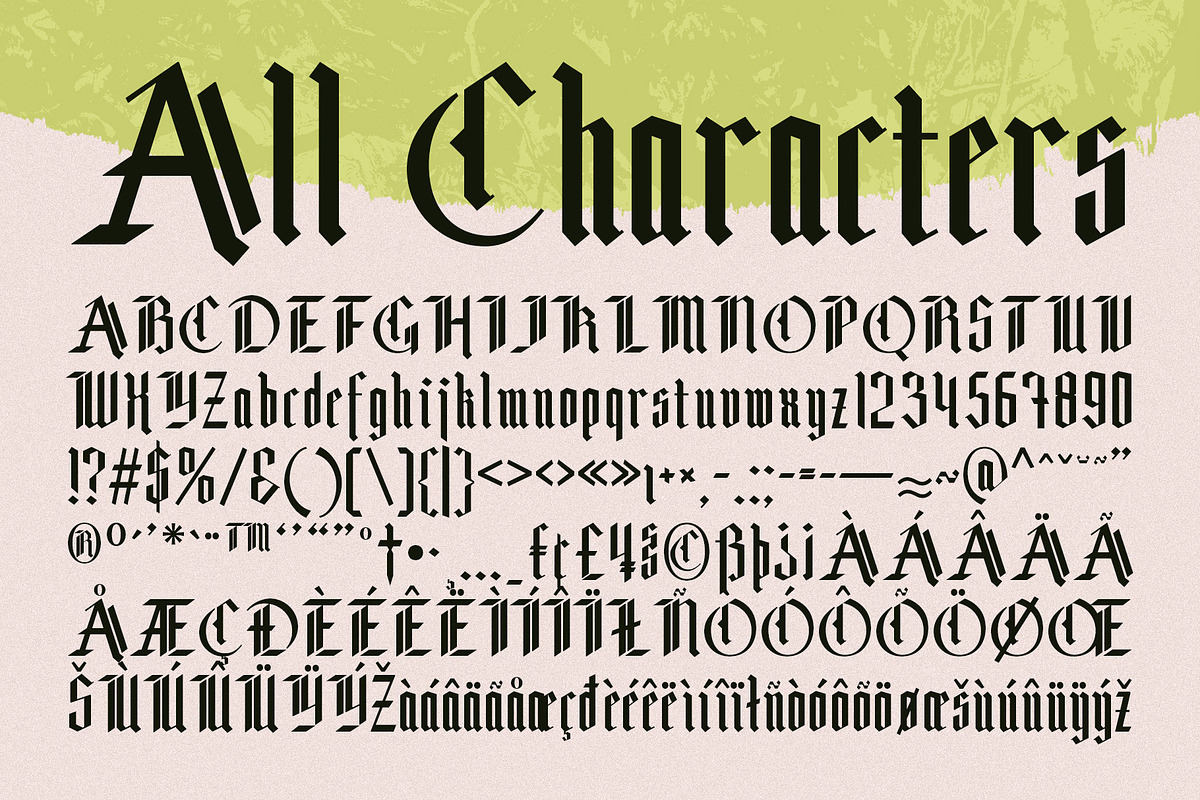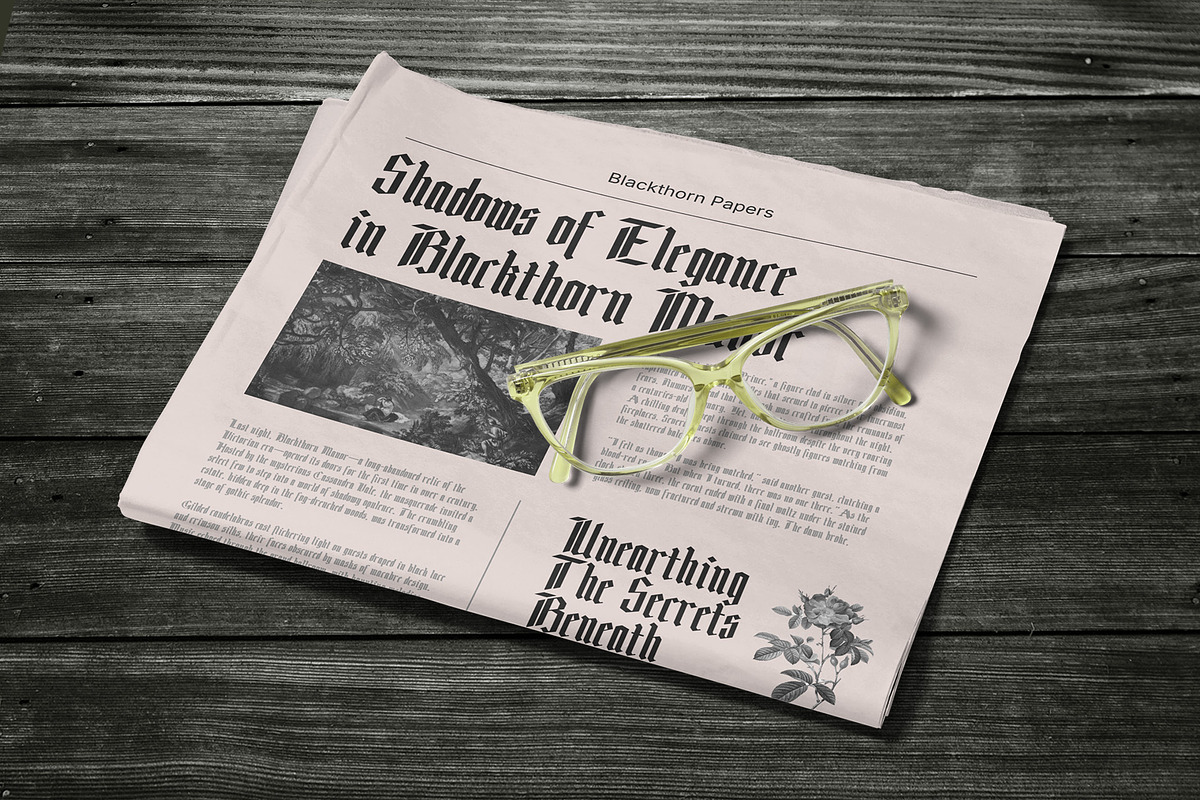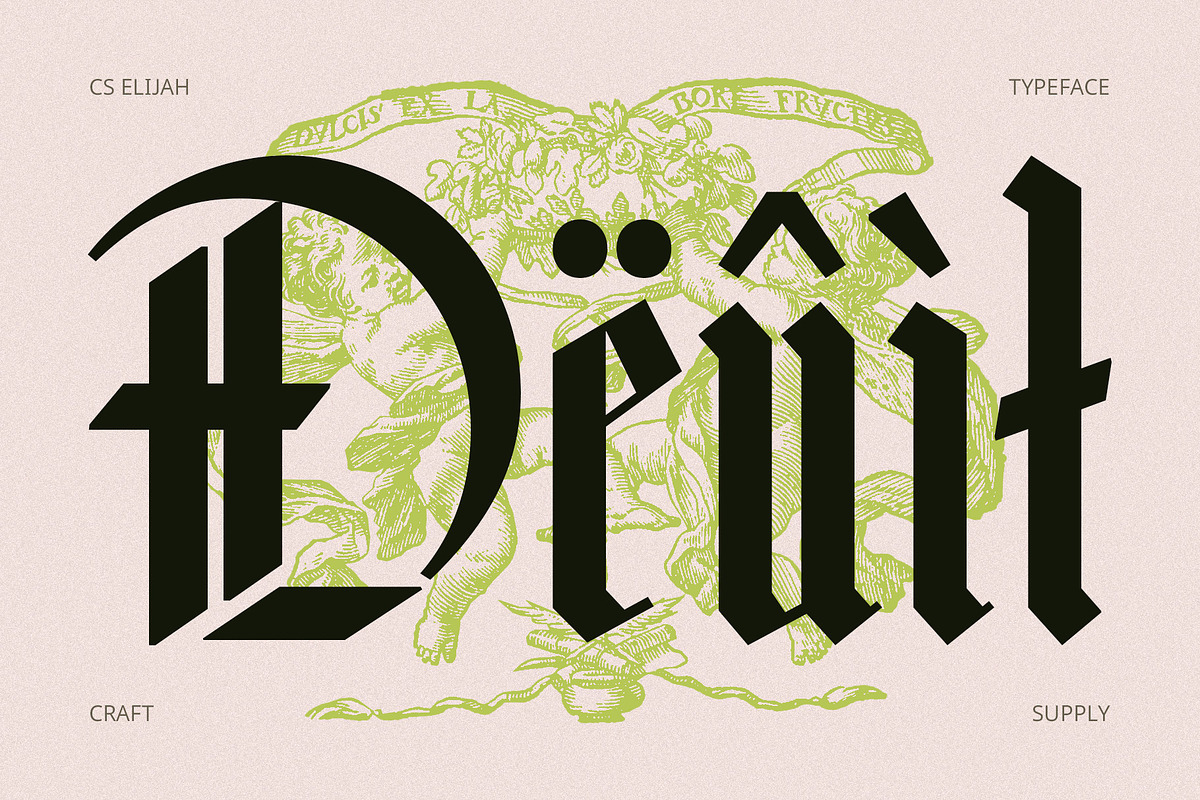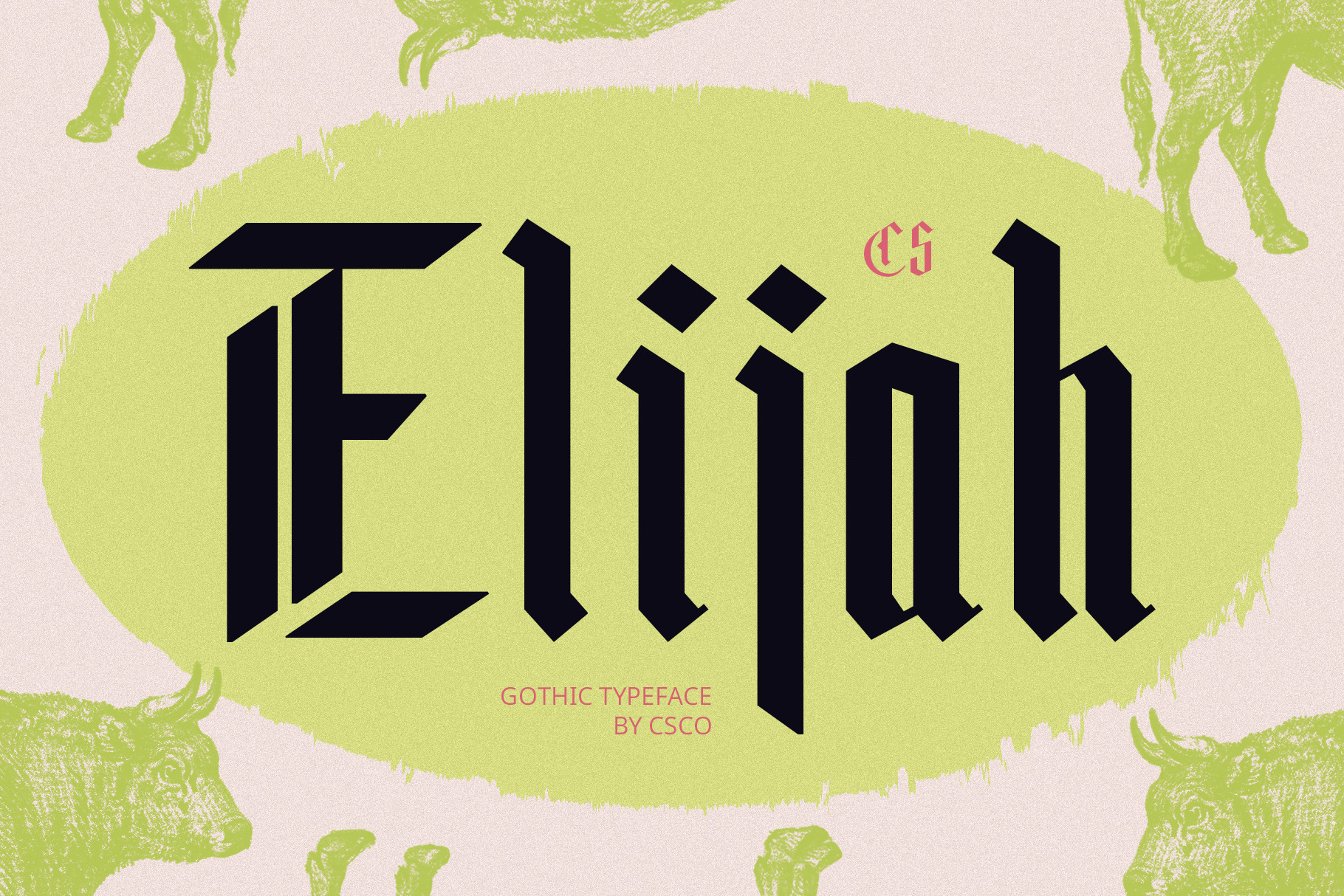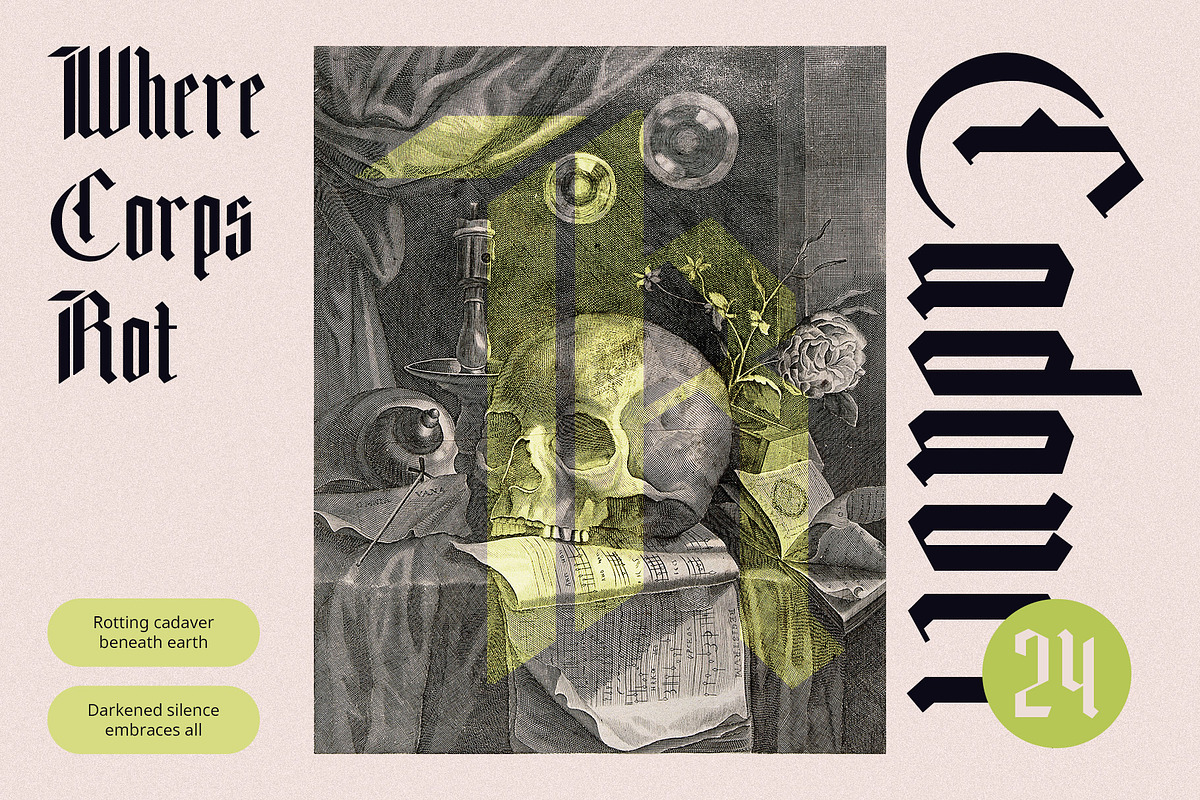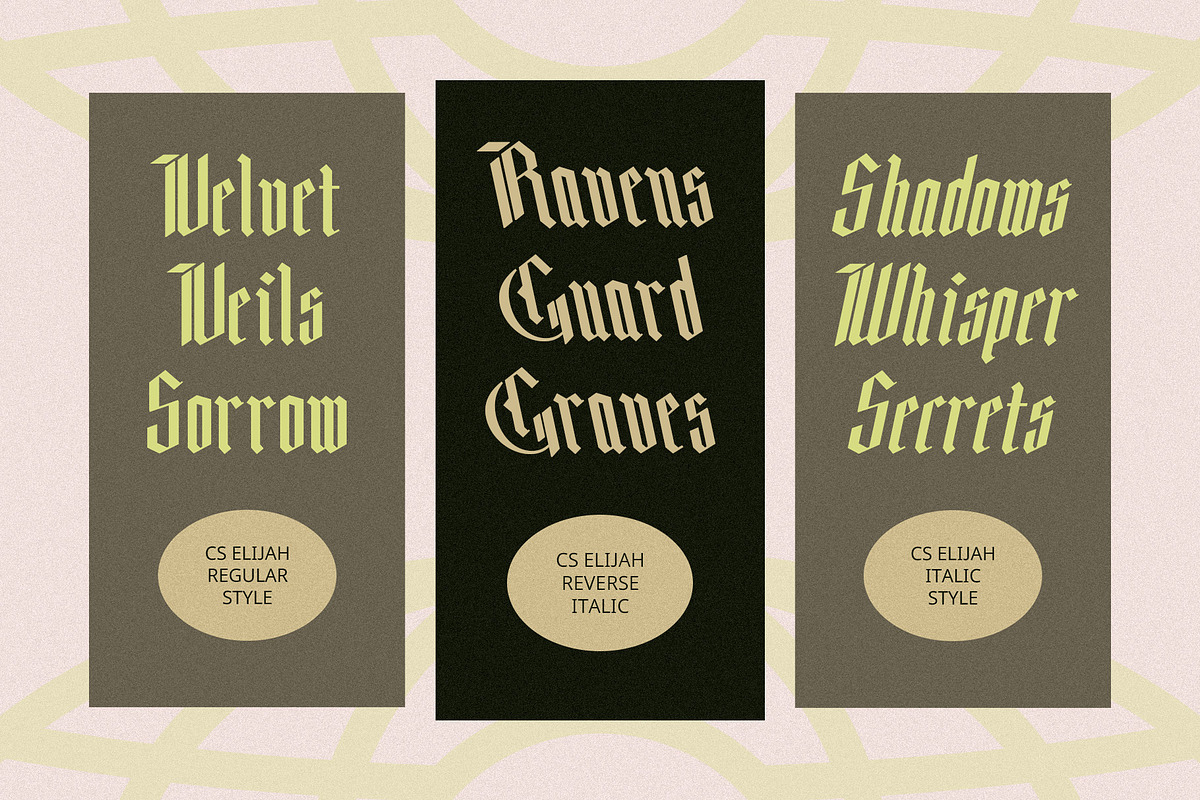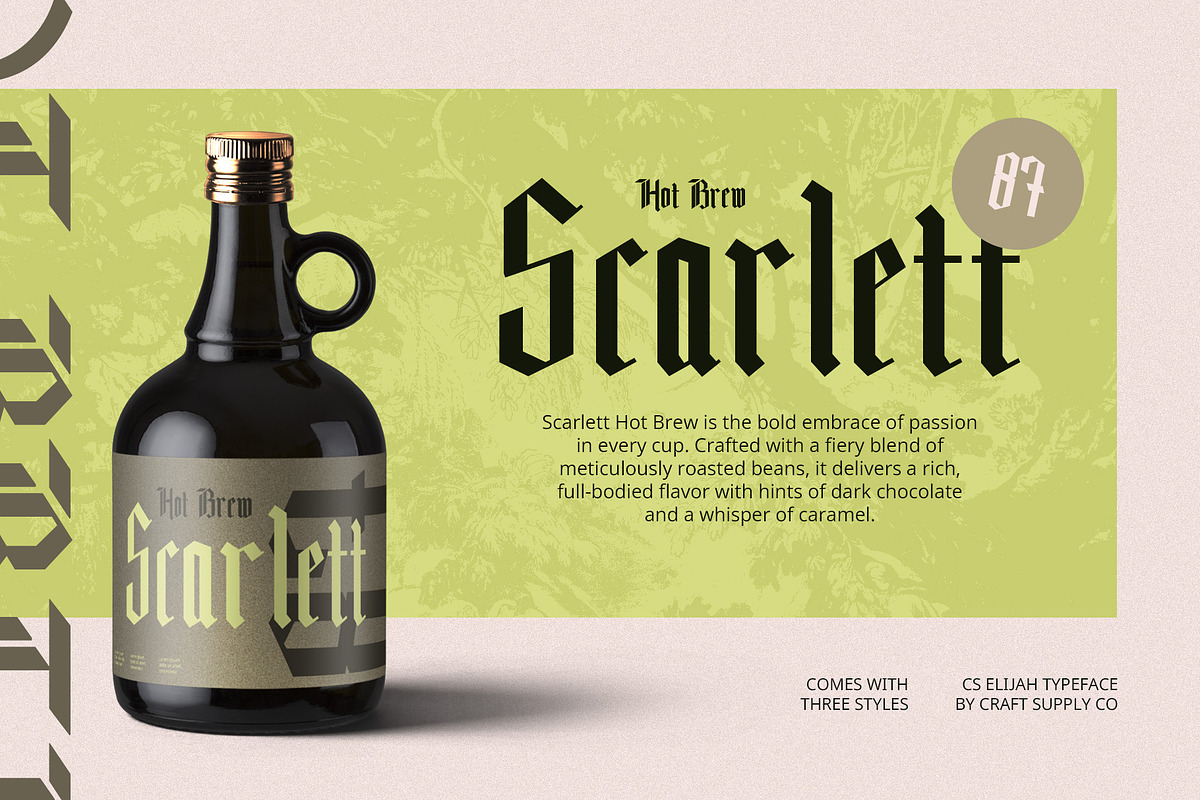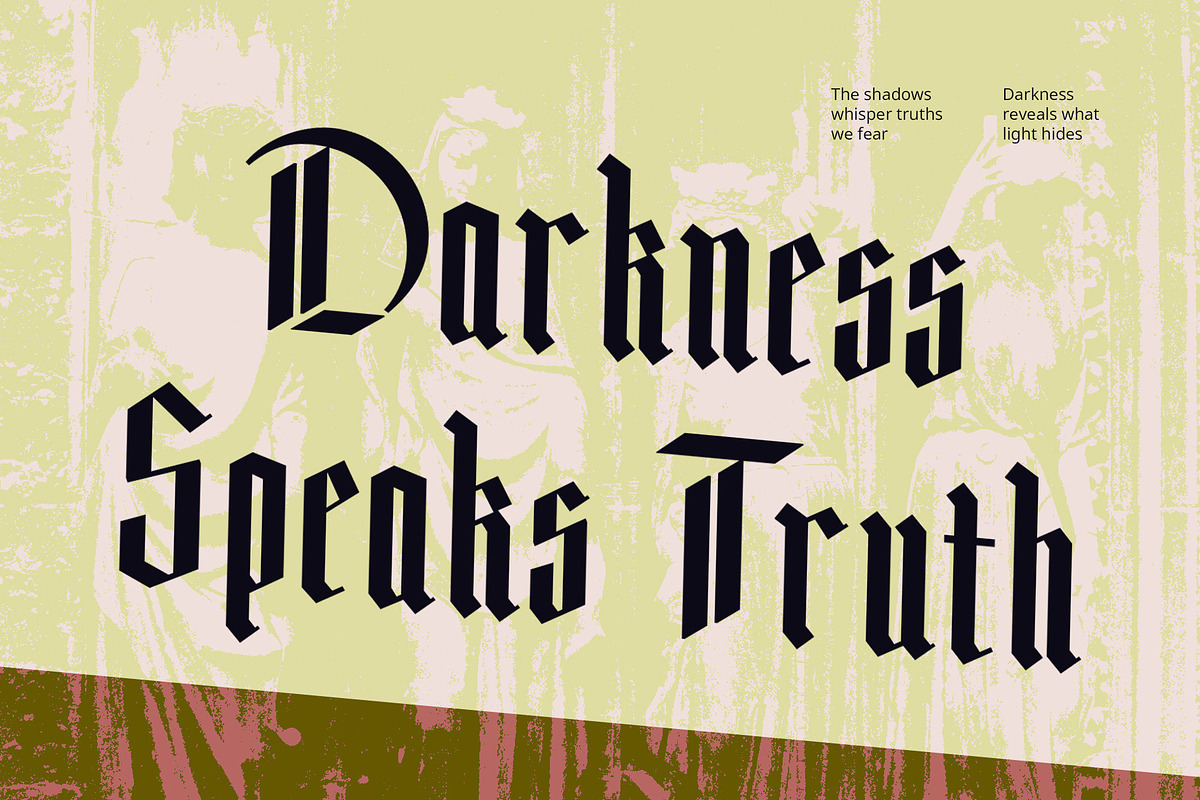
CS Elijah – Gothic Font
CS Elijah – Modern Gothic Font: Bold, Sophisticated, and Dramatic
Classic Gothic with a Contemporary Twist CS Elijah is a modern Gothic display font that masterfully combines the dramatic essence of traditional Gothic typography with sleek, contemporary design elements. Featuring bold, angular letterforms, sharp edges, and clean lines, it strikes the perfect balance between historical depth and modern minimalism.
Commanding and Sophisticated Aesthetic With its striking design, CS Elijah projects an air of sophistication and authority, making it ideal for projects that require a bold and commanding presence. Its clean yet intricate details add a sense of refinement, perfect for branding, luxury designs, and high-end editorial layouts.
Versatile for Dramatic and Elegant Designs Whether used in album covers, event posters, or logo designs, CS Elijah delivers an impactful and dramatic flair. Its modern take on Gothic styling ensures it complements both classic and contemporary projects, making it a versatile choice for diverse creative needs.
Timeless and Striking CS Elijah’s fusion of Gothic tradition with modern aesthetics creates a font that is both timeless and striking. Its sharp, bold letterforms ensure your designs stand out, capturing attention with a commanding and elegant impression.
- CS Elijah Regular
- CS Elijah Italic
- CS Elijah Reverse Italic